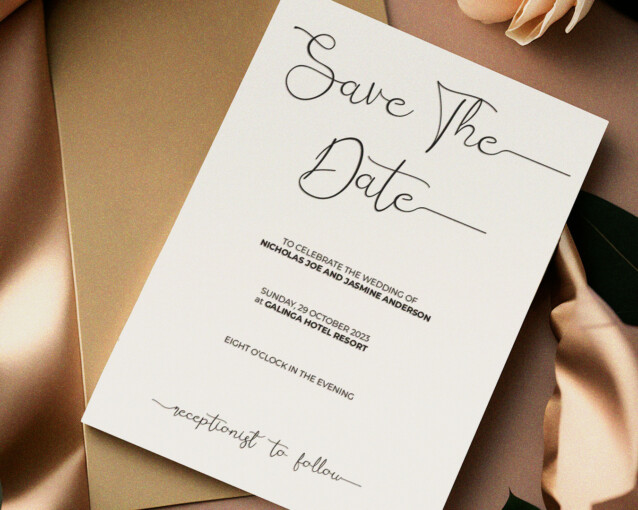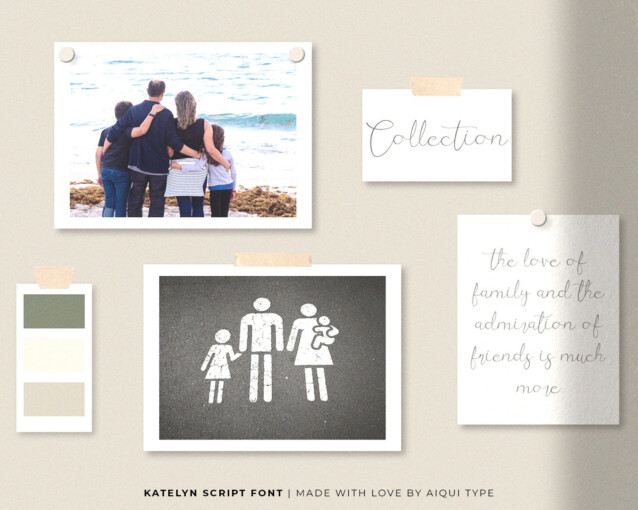
Katelyn Font
Katelyn Font is a harmonious blend of contemporary elegance and timeless calligraphic charm.
Very suitable for your creative projects, from wedding invitations to branding, and everything in between. Its flowing strokes and graceful curves lend a touch of sophistication to any design, making your text come alive with a touch of modern allure.